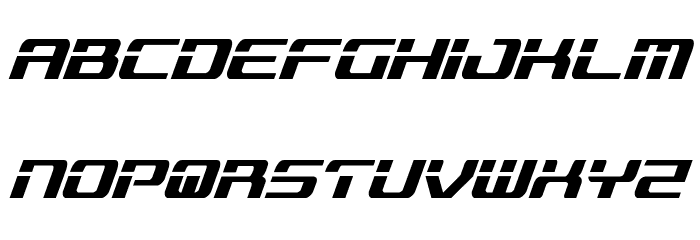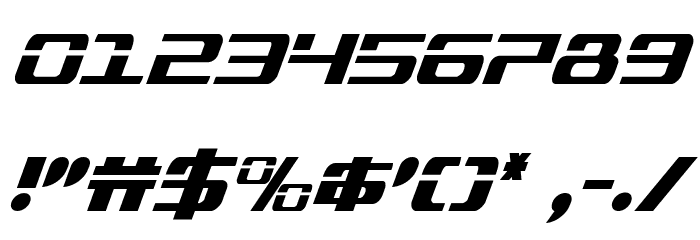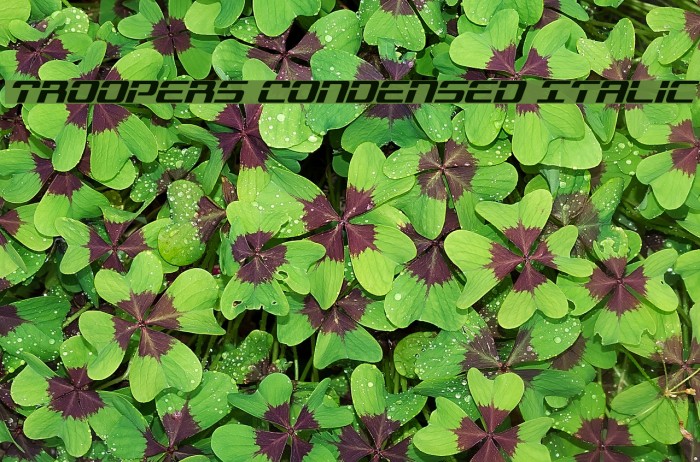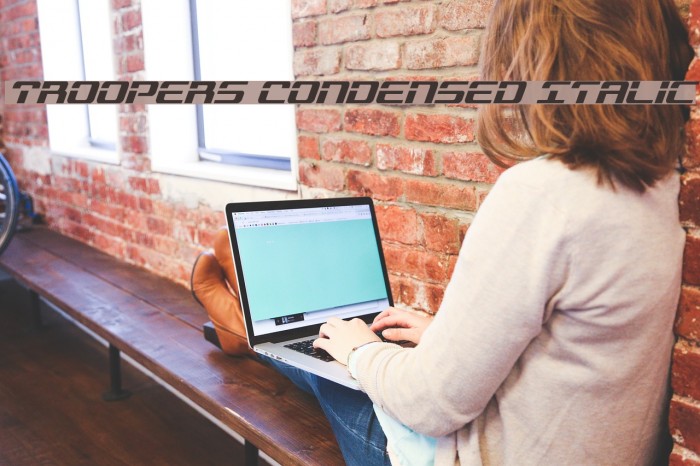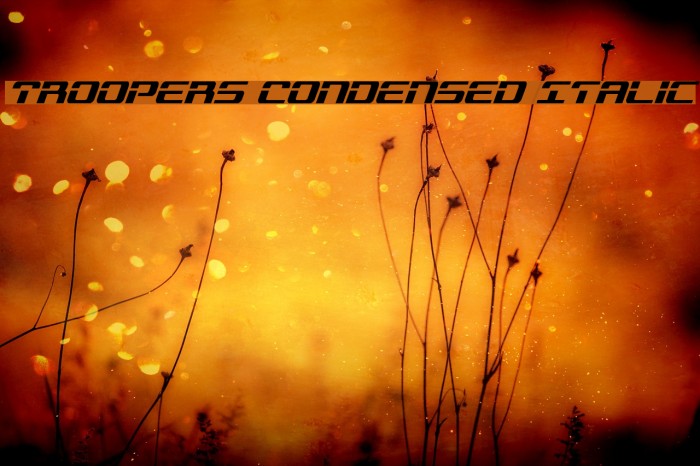
Troopers Condensed Italic Font
This font features a futuristic and dynamic design with a condensed and italicized style. The characters are bold and angular, with sharp edges and a geometric structure that gives a sense of movement and speed. The uppercase letters are uniform in height, while the lowercase letters maintain a consistent style, enhancing readability. The numerals are distinct and align well with the overall aesthetic. Special characters are designed to complement the bold and modern look, making it suitable for impactful and attention-grabbing designs.
A bold, condensed, and italicized font with a futuristic and dynamic design.
- Proposed Projects: Ideal for sci-fi themed projects, video game titles, movie posters, and branding that requires a modern and edgy look.